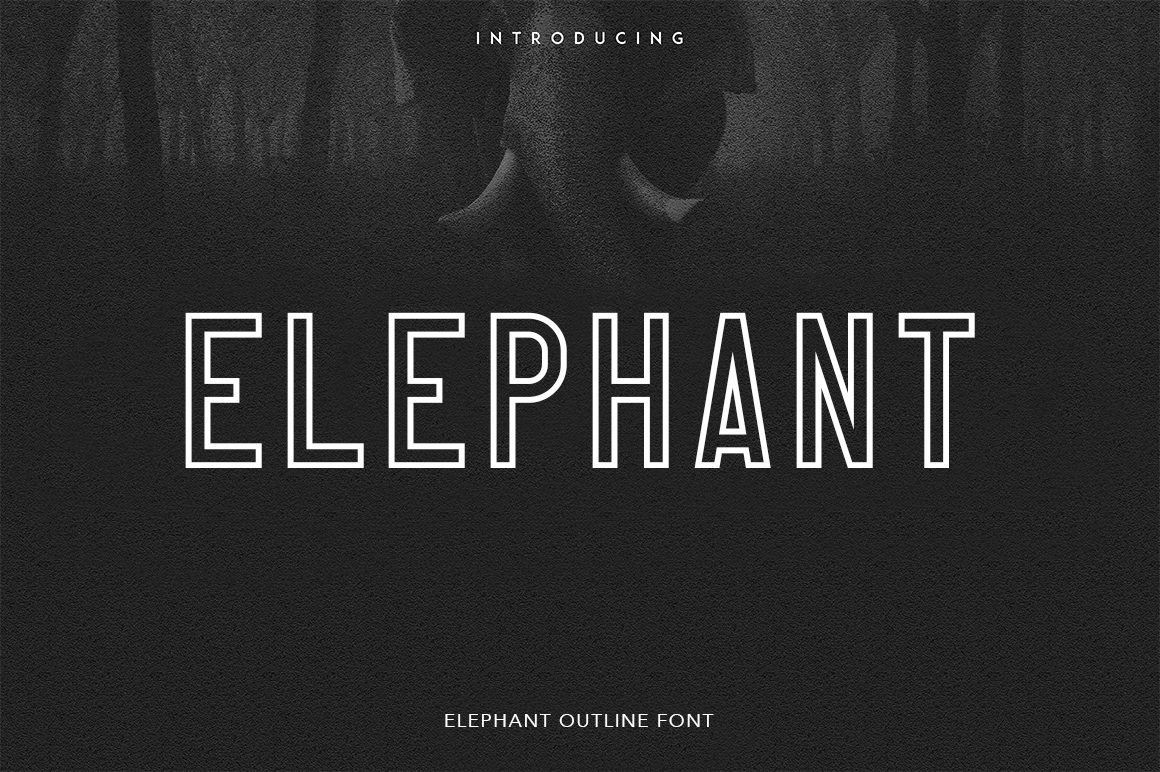
Elephant font is a bold and powerful sans-serif typeface with multilingual support. Give your designs a clean and minimal yet modern outlook with this font.
Elephant font is a very versatile and modern font that works great in large and small sizes.
The outlined fonts give a real modern feel to any project. The Elephant font is perfect for greeting cards, photography, watermarks, quotes, posters, wedding invitations, blog headers, branding, logos, fashion, apparel, letters, and stationery—or simply as a stylish text overlay to any background image. Pixelo has many more amazing and artistic fonts, like tattoo fonts, blackletter fonts, sports fonts, and more.
- Uppercase, lowercase, numeral, punctuation & Symbol